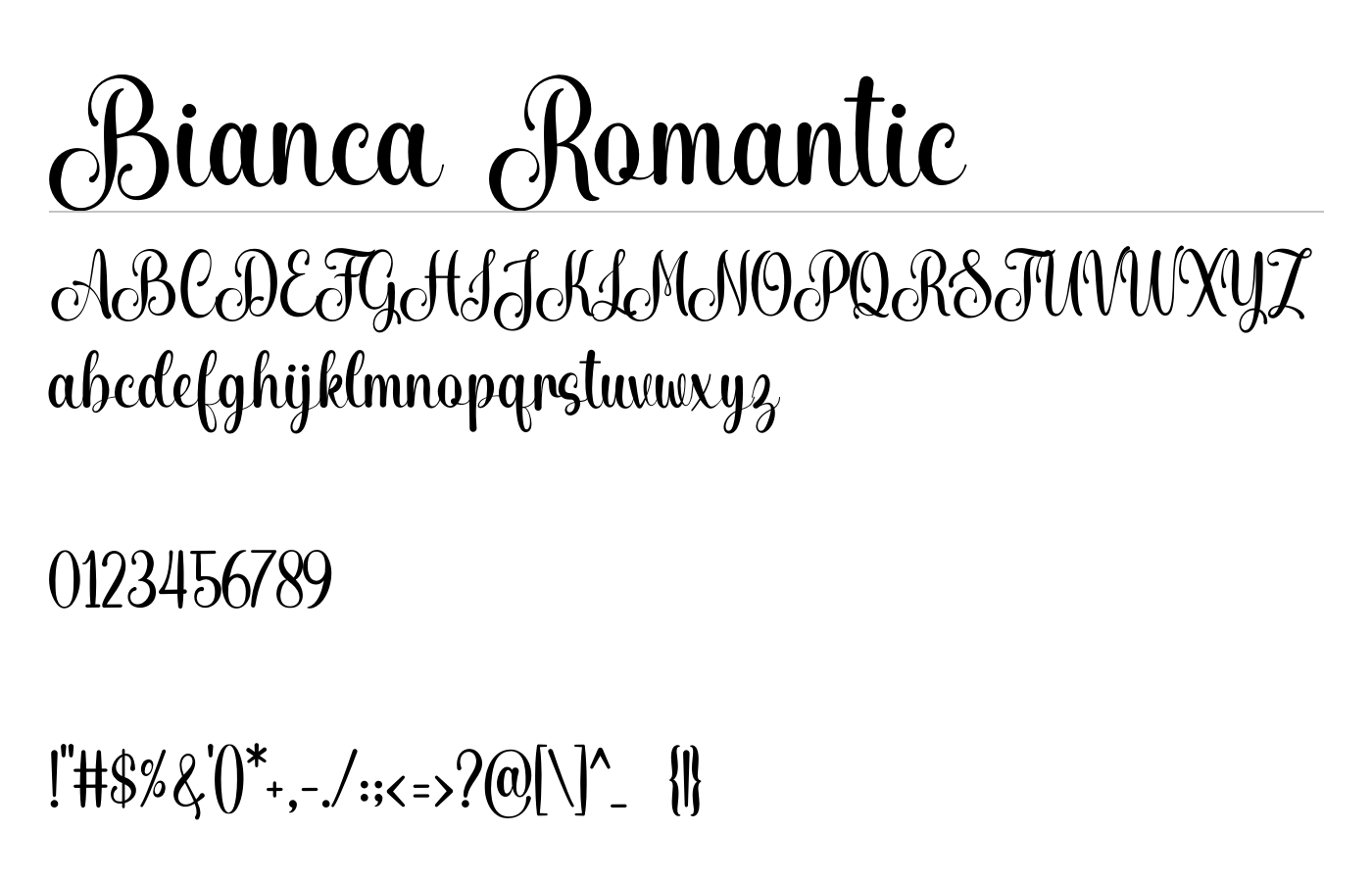
Bianca Romantic is a charming script font with elegant, flowing curves and a playful yet refined personality. Its slender strokes and delicate swashes create a romantic, vintage feel, making it perfect for wedding invitations, beauty branding, and feminine editorial projects. This font stands out in headlines and decorative uses where a graceful and sophisticated touch is desired.
Bianca Romantic Font
About Bianca Romantic Font
| Font family | Bianca Romantic Font |
| Designer | Hamber Perdiansyah |